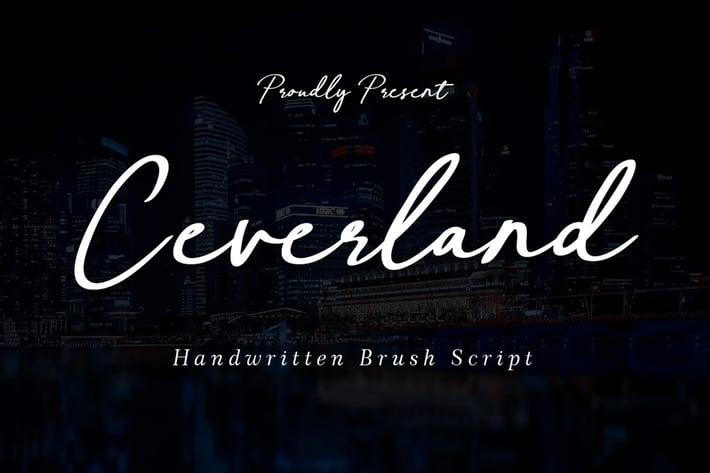
Ceverland - Brush Script Font
Ceverland is a unique and elegant handwritten brush script font. It looks beautiful on a variety of designs requiring a personalized style, such as wedding invitations, thank you cards, weddings, greeting cards, logos, and so on.
Uppercase, Lowercase, Numerals & Punctuations
Ligature & Alternate